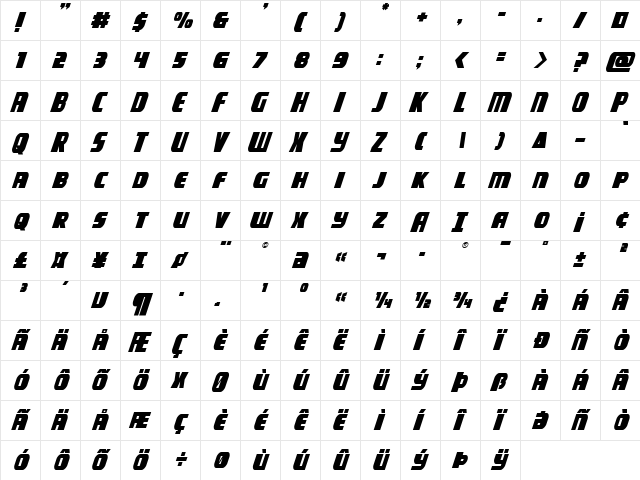
Camp Justice Mid-Case Italic Italic
Design Context for Camp Justice Mid-Case Italic Typeface
Camp Justice Mid-Case Italic is a composed and adaptable typeface that performs quietly and consistently across a wide range of design contexts. The slanted form adds forward momentum and visual energy.
Pro Tip: Use Camp Justice Mid-Case Italic for emphasis, pull quotes, and subheadings where its slanted energy can add rhythm to the layout.